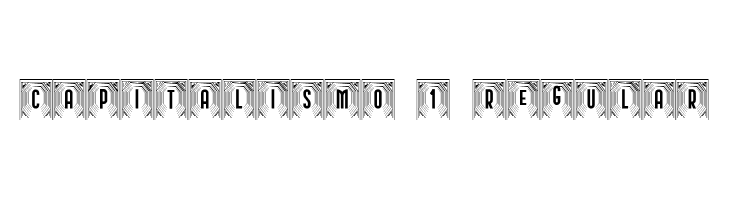
A bold, decorative font with geometric borders and sans-serif characters.
A bold, geometric font with decorative octagonal frames around each character.
A bold, geometric font with Art Deco-inspired octagonal frames around each character.
A bold, geometric font with characters enclosed in multi-layered octagonal borders.
A bold, decorative font with characters enclosed in octagonal frames, ideal for striking designs.
A bold, geometric font with decorative borders and a modern, industrial style.
A bold, decorative font with geometric octagonal frames around each character.
A bold, geometric font with Art Deco-inspired octagonal frames.
A bold, geometric font with characters enclosed in decorative octagonal frames, ideal for impactful designs.